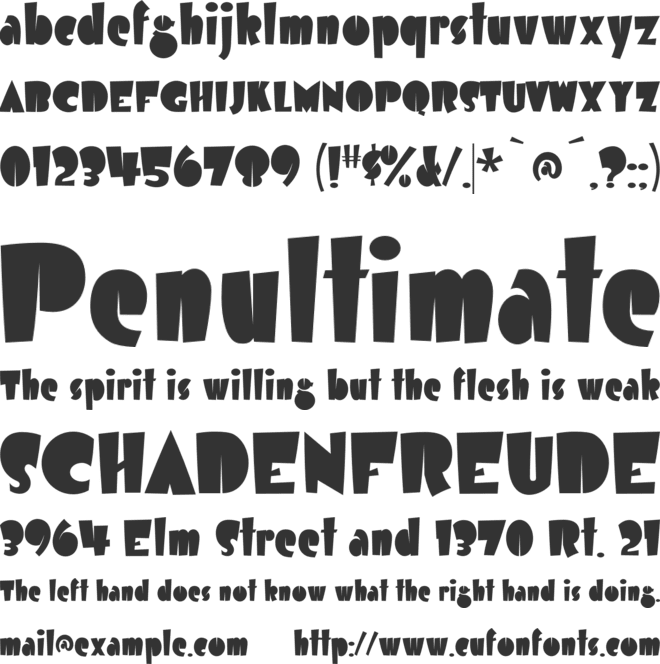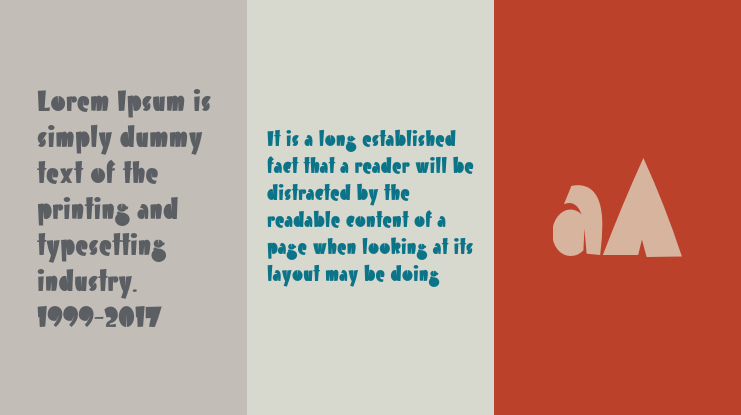
Raymond Larabie
I released Airmole on September 26, 2000. The name came from the
kind of psychedelic juxtapositions I liked in band names such as Led
Zeppelin or Soft Machine. Since moles live underground, calling one
“Airmole” felt memorable and a little absurd.
The design was based on a sample I found in a Speedball lettering guide
from the early 20th century. Rather than tracing the letters directly, I
built them up with Bézier curves, keeping the spirit of the original but
simplifying the shapes so they worked better as a digital typeface. That
approach marked the beginning of my habit of doing looser revivals
rather than strict ones. The lettering in the Speedball books was fairly
clean, and a few other designers later produced more faithful revivals.
Mine is pared down, which I think makes it more practical as a typeface.
Airmole is a heavy counterless display design with a casual art deco feel.
Because it has no counters, it was actually quicker to produce than
retro-themed contexts, though nothing especially memorable comes to
mind.
it as part of my series of “not too strict” revivals, a style of
reinterpretation that has remained a recurring thread in my work.